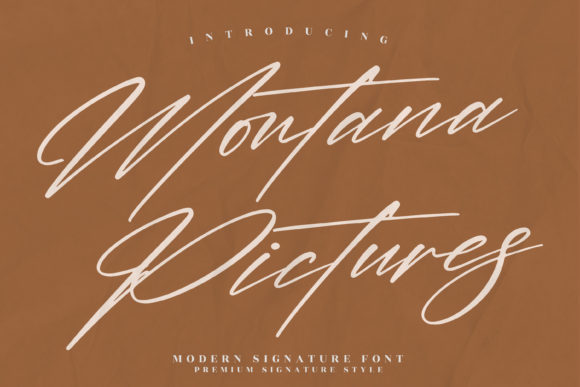
Unleash the Creative Power of Montana Pictures: A Script Font that Captures Timeless Elegance
In the realm of digital art and design, fonts hold an unparalleled power to transform ordinary words into captivating expressions of creativity. They possess the ability to evoke emotions, set the tone, and create a lasting impression on your audience. Among the vast array of fonts available, one stands out as a true masterpiece of elegance and style: Montana Pictures.
Montana Pictures is a script font that exudes a timeless charm, reminiscent of handwritten calligraphy that has stood the test of time. Its graceful curves and delicate strokes lend an air of sophistication and refinement to any design project. Whether you're creating logos, branding, or simply adding a touch of personal flair to your quotes, Montana Pictures is the perfect choice for adding a touch of class and sophistication.
As a designer, you know that the right font can make all the difference in capturing the attention of your audience and conveying your message effectively. Montana Pictures possesses an innate ability to do just that. Its meticulously crafted characters have been designed to create a visual harmony that draws the eye and invites the reader to delve deeper into your content.
Beyond its aesthetic appeal, Montana Pictures is also incredibly versatile, lending itself to a wide range of applications. Whether you're designing for print, web, or social media, this font will seamlessly adapt to your creative vision. Its PUA encoding ensures that you have access to a comprehensive collection of glyphs and swashes, empowering you to add intricate details and flourishes to your designs with ease.
Imagine the impact Montana Pictures will have on your T-shirt designs. Its elegant script style will transform your creations into wearable works of art, capturing the attention of fashion-forward individuals who appreciate timeless style. Your T-shirts will become conversation starters, with people eager to know where they can get their hands on such a unique and eye-catching design.